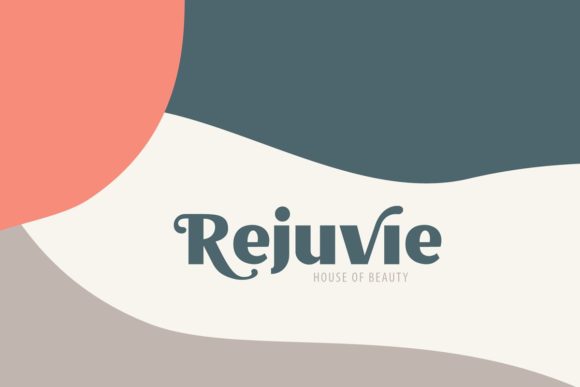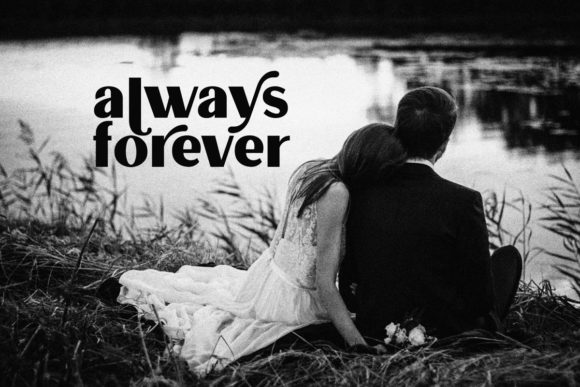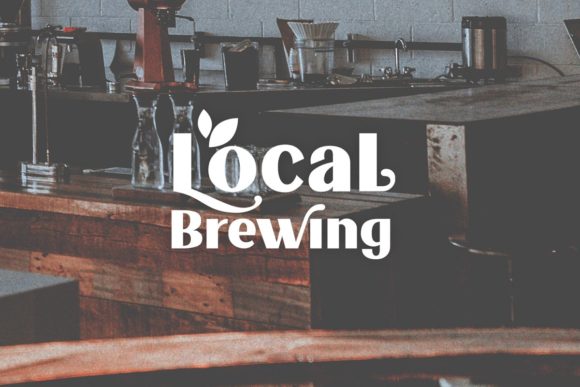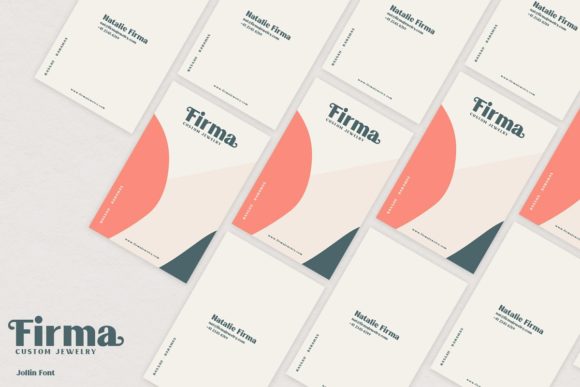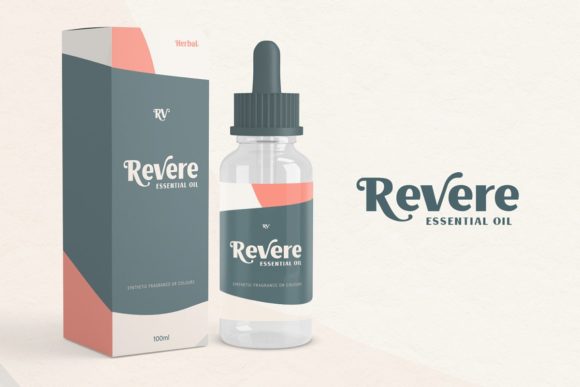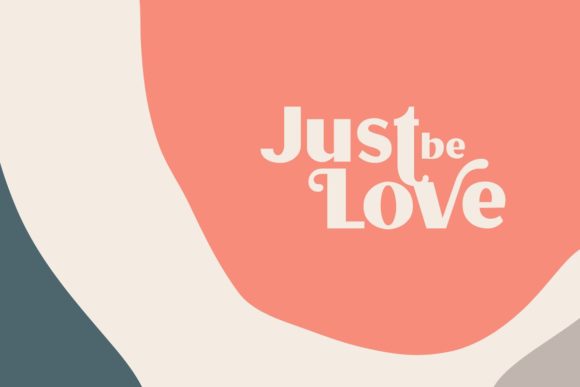
Introduction to Jollin Font
Simplicity never looked so good: Jollin is an exceptionally well-crafted display font that will take any design project to the next level.
Jollin Font offers exceptional quality and versatility, making it a valuable addition to your design toolkit. Whether you’re creating for personal projects or commercial use, Jollin Font delivers professional results.